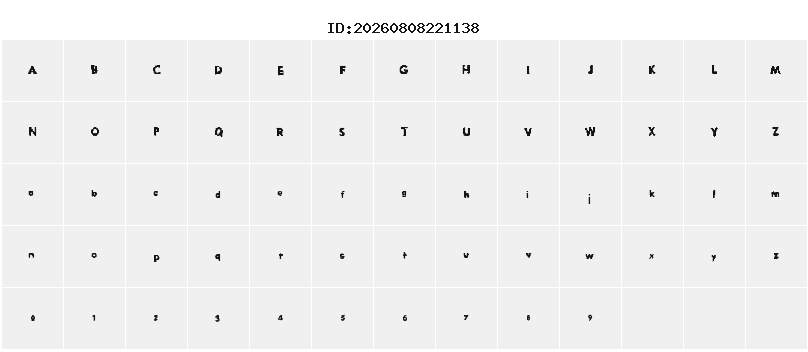
PixelNoise Preview
• Font Name: PixelNoise
• Designer: Eric Wiryanata
About PixelNoise.ttf
PixelNoise.ttf is a modern, elegant sans-serif font designed for ultimate readability and visual harmony. Perfect for branding, headlines, web design, and print materials.